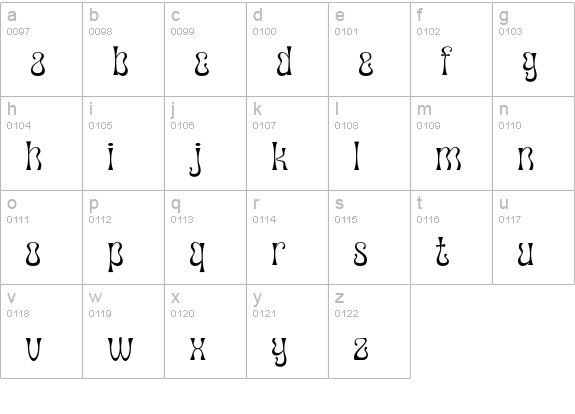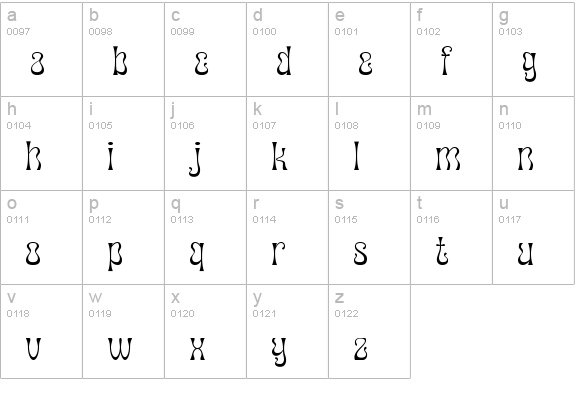
Canobis font is a modern and stylish typeface that exudes elegance and sophistication. With its clean lines and sleek design, this font is perfect for a wide range of design projects, from branding to editorial design. The versatility of Canobis font makes it an ideal choice for both digital and print-based projects.